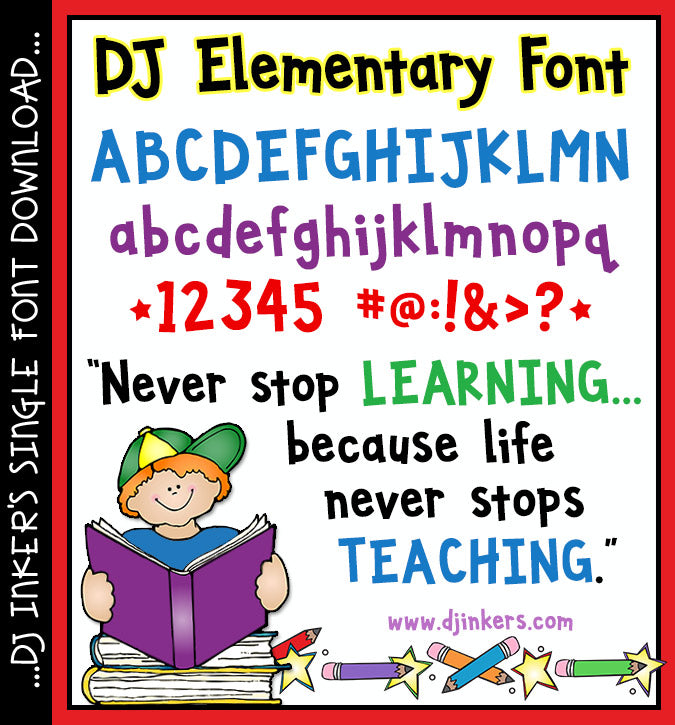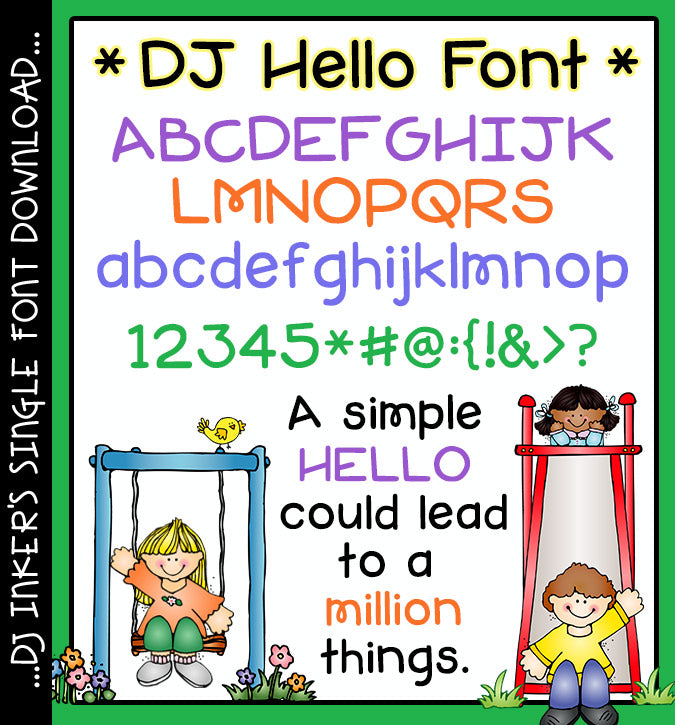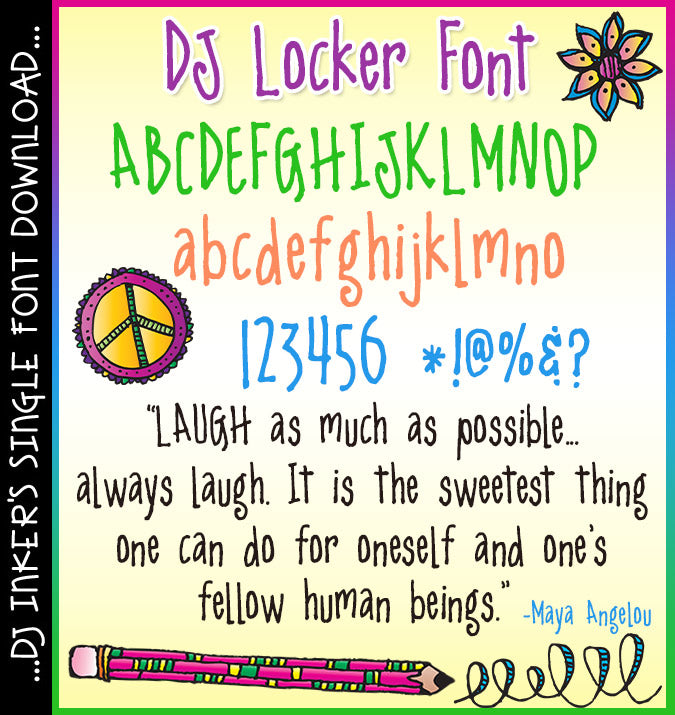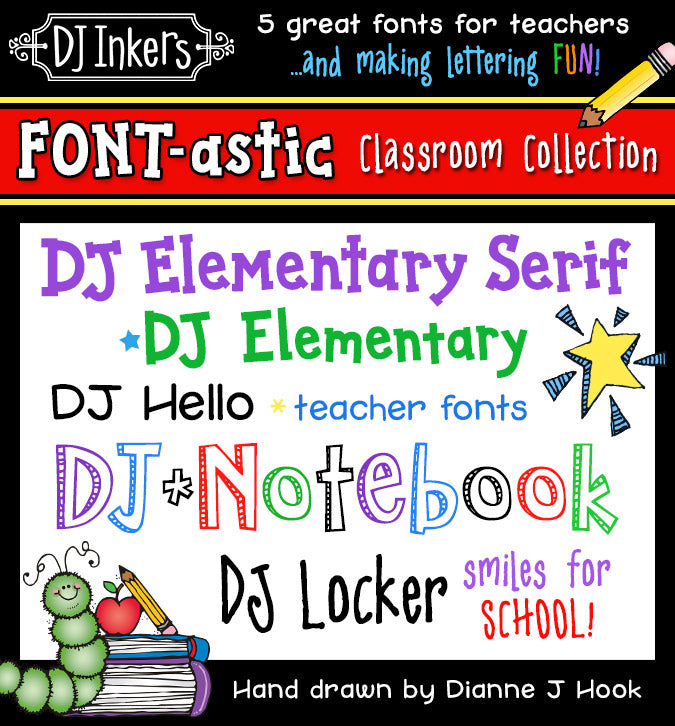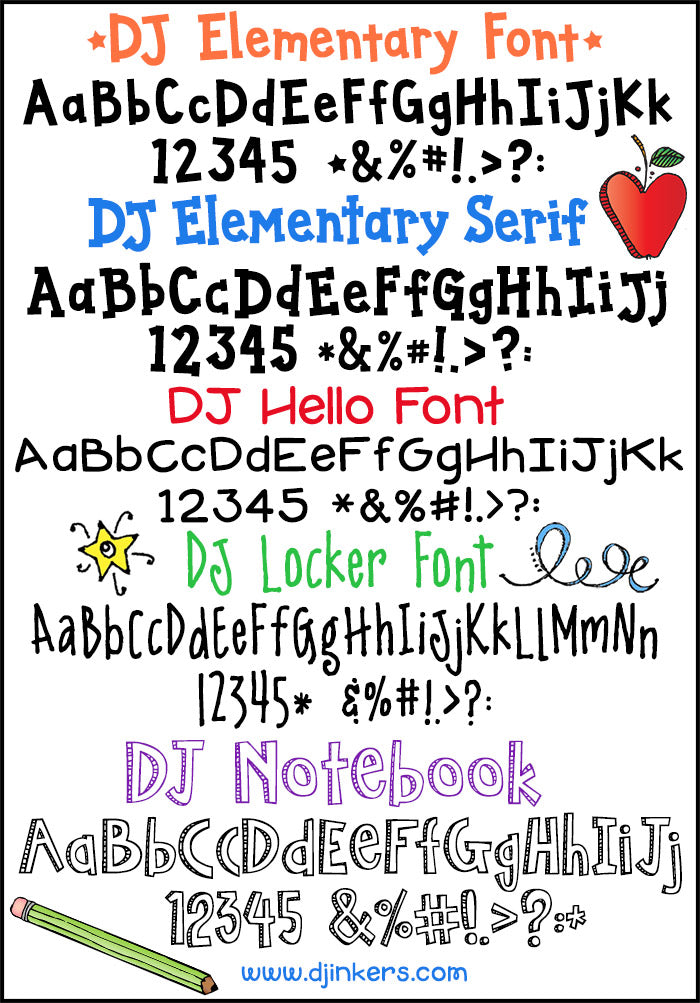
Font-astic Classroom Collection - 5 DJ Fonts for Teachers
Get ready to transform your classroom materials with the DJ Inkers' Font-astic Classroom Collection! This incredible bundle features 5 dynamic fonts designed to make learning and teaching more engaging. Say goodbye to dull handouts and hello to projects that pop! Perfect for customizing worksheets, smart board displays, eye-catching newsletters and every classroom creation in between. Give your lessons the personality they deserve and watch your students smile!
This Font-astic Bundle includes 5 fonts:
DJ Elementary, DJ Elementary Serif, DJ Hello, DJ Locker and DJ Notebook.  Also sold separately, but this set saves you a bundle!